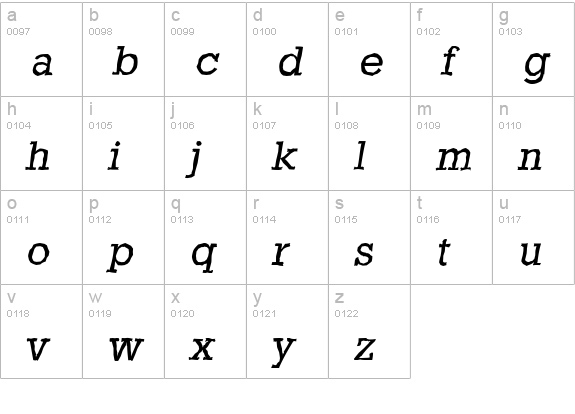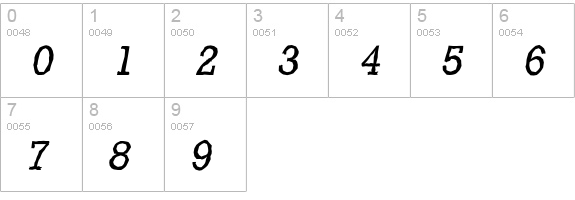
StaffordAntique-Italic is a distinctive, italic variant in the StaffordAntique typeface family \xE2\x80\x94 well suited to design and typography projects.
StaffordAntique-Italic is a timeless and elegant font that exudes a sense of vintage charm and sophistication. Its delicate italicized strokes and intricate details make it perfect for adding a touch of class to any design project. Whether you're creating invitations, branding materials, or editorial layouts, StaffordAntique-Italic will elevate your work to new heights. The best part? This exquisite font is available for free download at FontsMarket.com. Don't miss out on the opportunity to enhance your projects with the beauty and grace of StaffordAntique-Italic. Download it today and let your creativity shine!